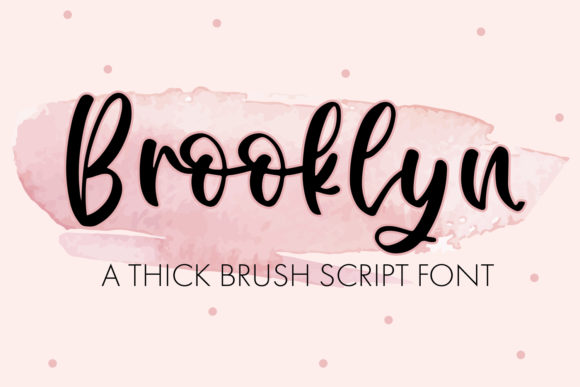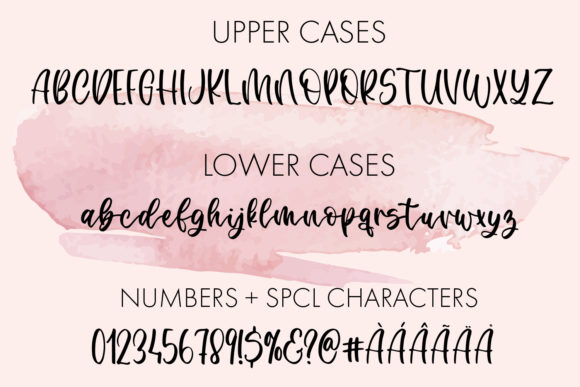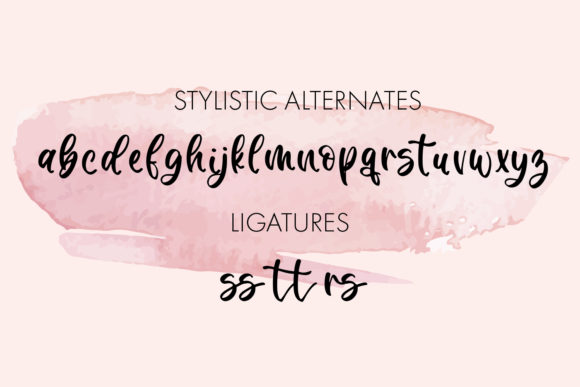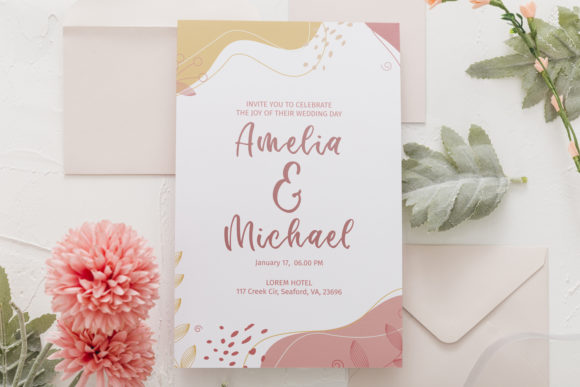
About the Brooklyn Font
Presenting Brooklyn Font, a unique and stylish typeface that will make your work stand out. Brooklyn is an elegant, friendly and flowing handwritten font. It looks stunning on wedding invitations, thank you cards, quotes, greeting cards, logos, business cards and every other design which needs a handwritten touch.
Brooklyn Font Usage Examples
Brooklyn Font Example